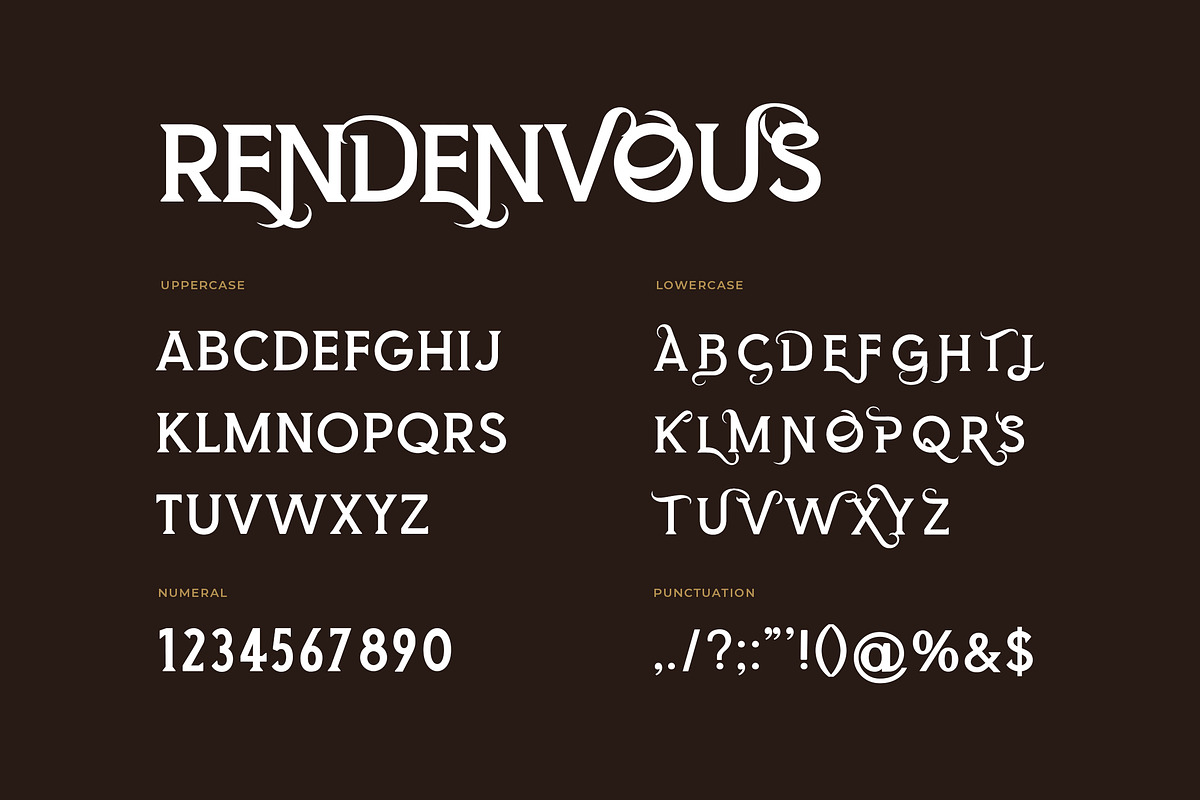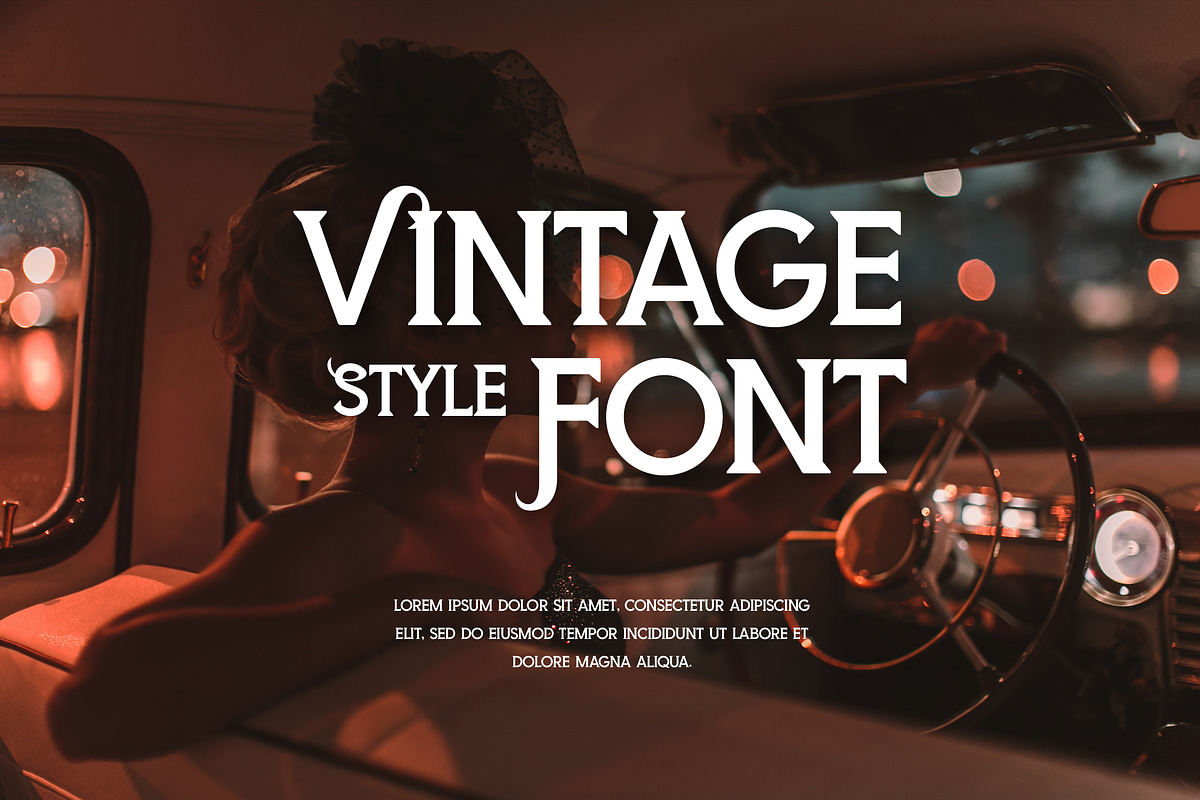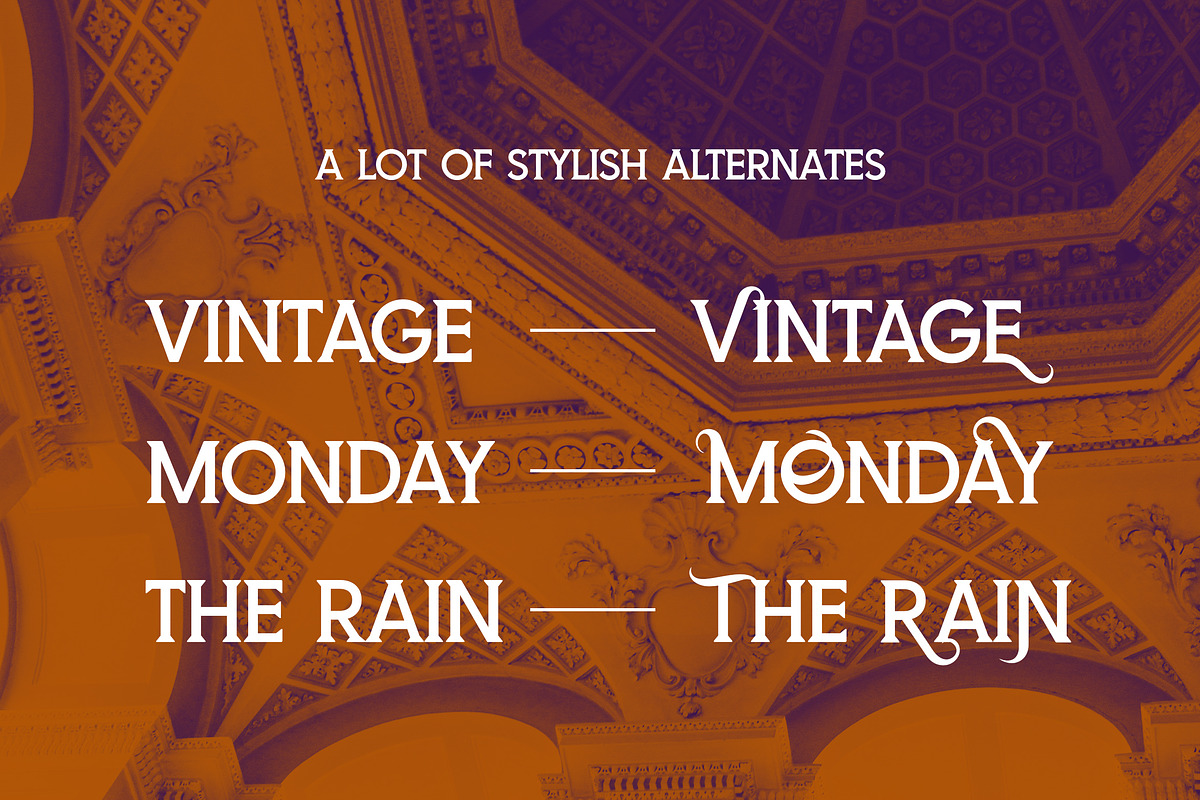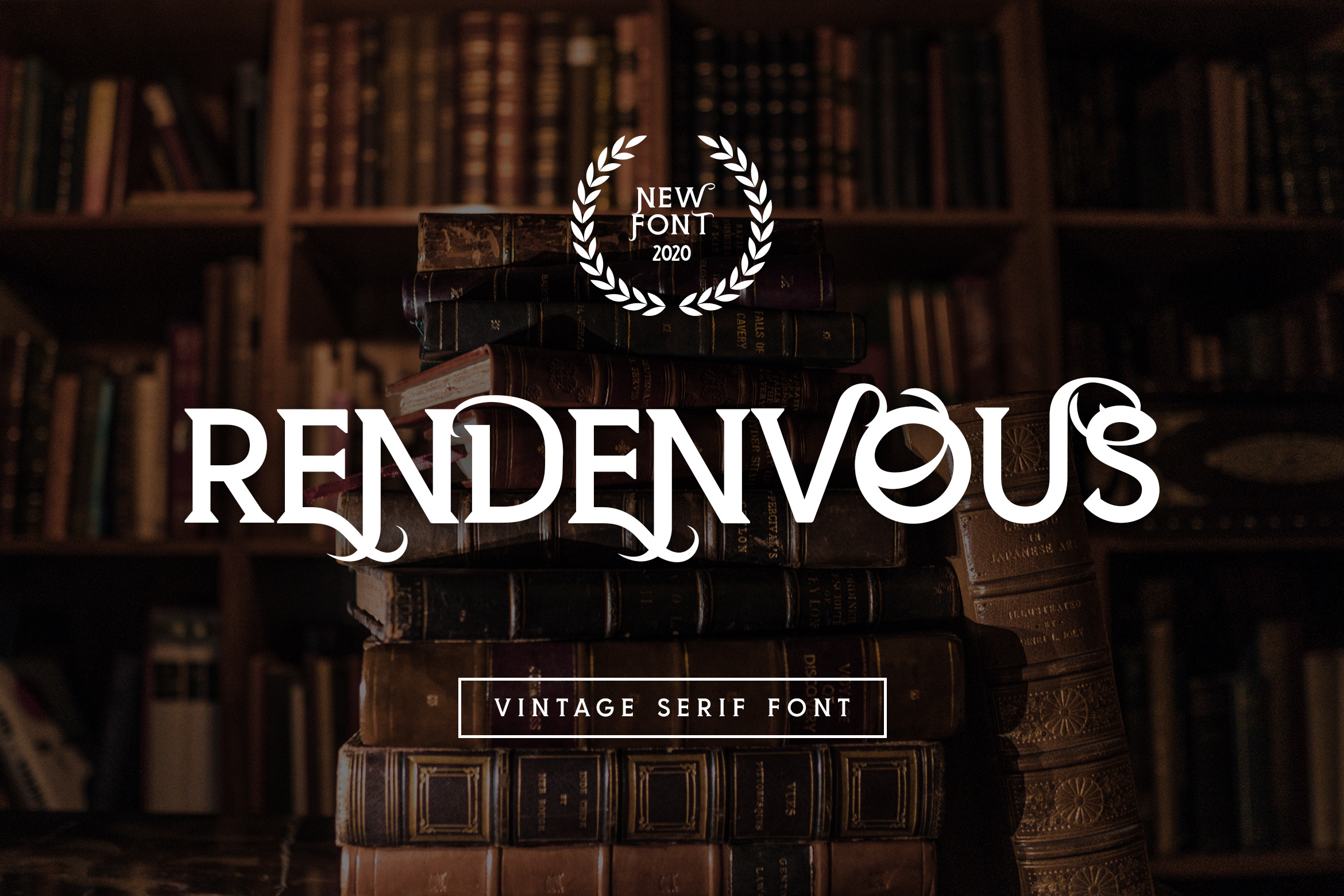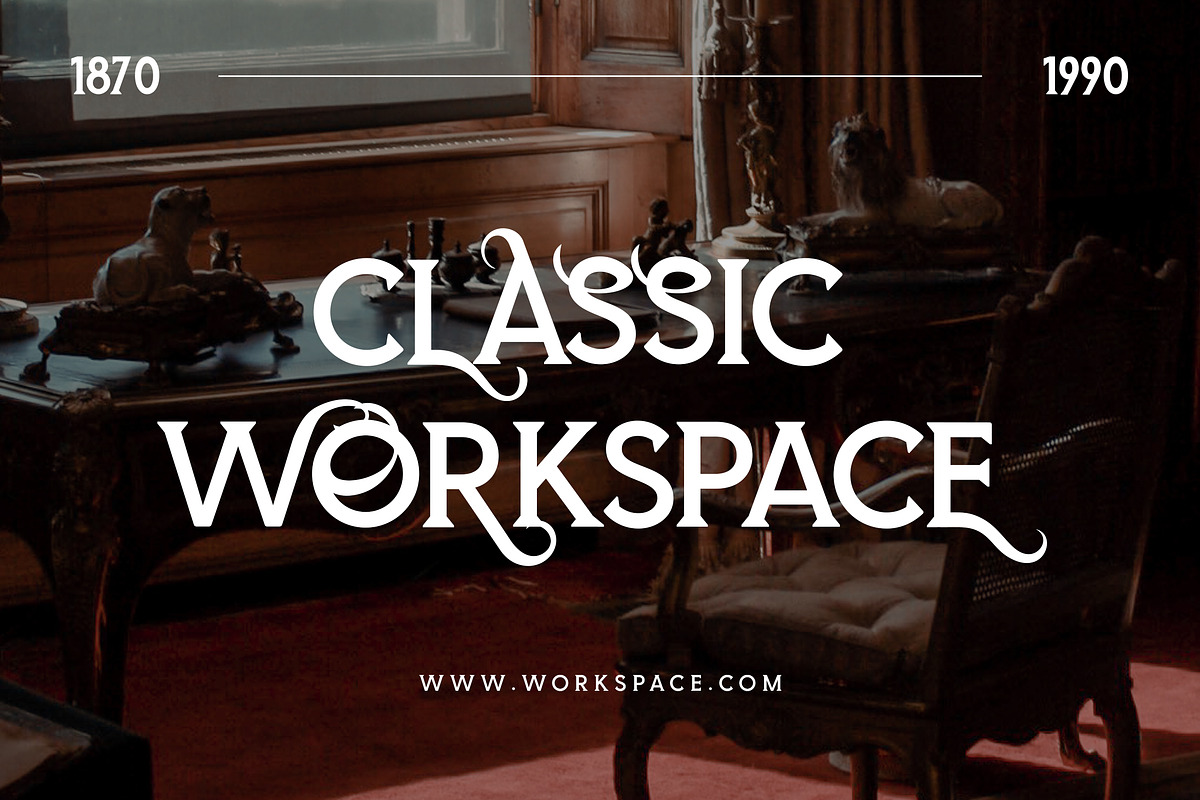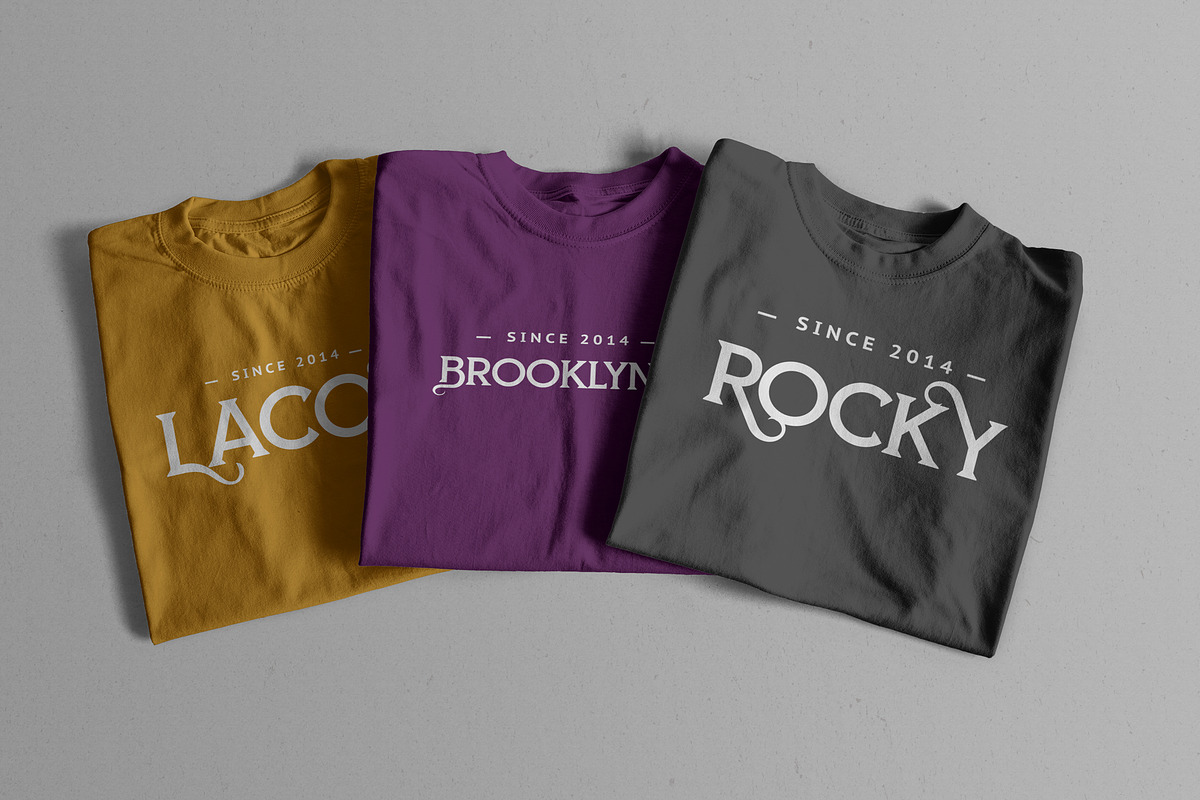
Rendenvous Serif Display Font
Introducing of our new product the name is Rendenvous Serif Display Font with its unique curves and cut-ins making it one of the most memorable caps fonts on the market .This font is perfect for fashion related branding or editorial design and displays both masculine and feminine qualities. Also you use this font on Logo & Label Design, Apparel Design, Music, Advertising, T-shirts, Brochures And more!